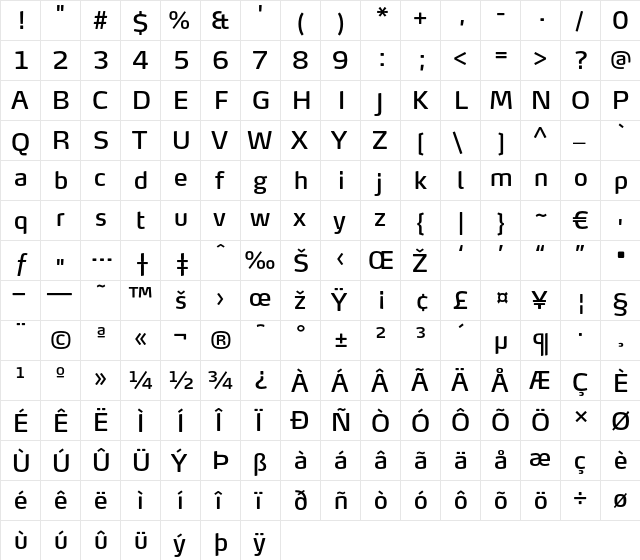
MaxTF-Book Regular
Design Context for MaxTF-Book Typeface
MaxTF-Book takes a measured approach to typography — its balanced proportions and neutral character make it a reliable workhorse for both digital and print work.